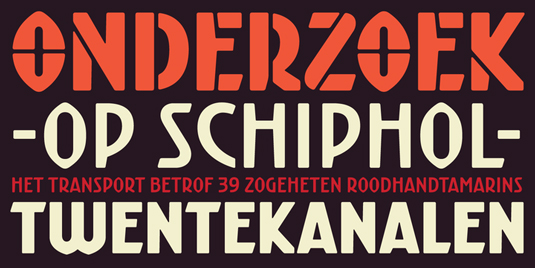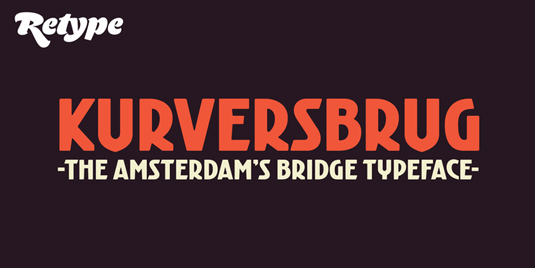
Font of the day: Kurversbrug
Every day we showcase the best fonts on the web. Today it's Kurversbrug by Ramiro Espinoza.
Kurversbrug by Ramiro Espinoza
Today's bold typeface of choice was created by graphic designer Ramiro Espinoza of digital type foundry Re-Type. "Kurversbrug is a revival of the famous letters that appear on Amsterdam’s bridges," Espinoza comments on MyFonts. "Although many corrections were made in order to improve its performance on paper, the original look is still intact. Kurversbrug is a font suitable for posters and idiosyncratic typographic works."